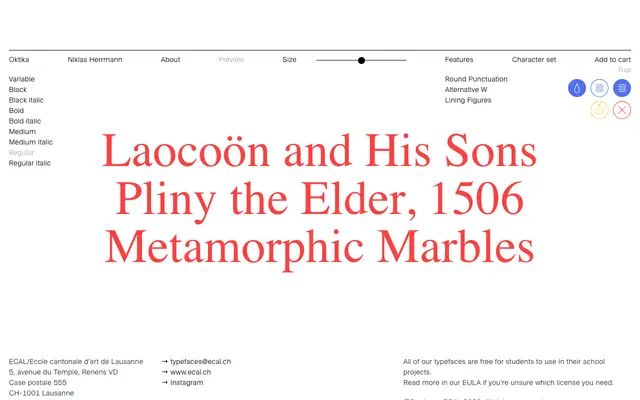
Oktika
A calligraphic serif by Niklas Herrmann that translates broad nib and stone-carving influences into sharp, warm forms suited to extended reading.
Chiselled serifs, diamond-shaped punctuation and sharply cut counters on the a and n give Oktika a distinctive material quality rooted in broad nib calligraphy and stone carving. The family runs from Regular to Black with matching italics, maintaining legibility across the range and making it reliable for text setting at length. Its warmth sits inside sharp forms, a balance that comes from a process grounded in tool and material exploration.
Oktika draws explicitly from broad nib calligraphy and stone carving traditions, producing chiselled serifs and sharp counters that place it firmly in the calligraphic serif subcategory rather than a purely historical revival model.